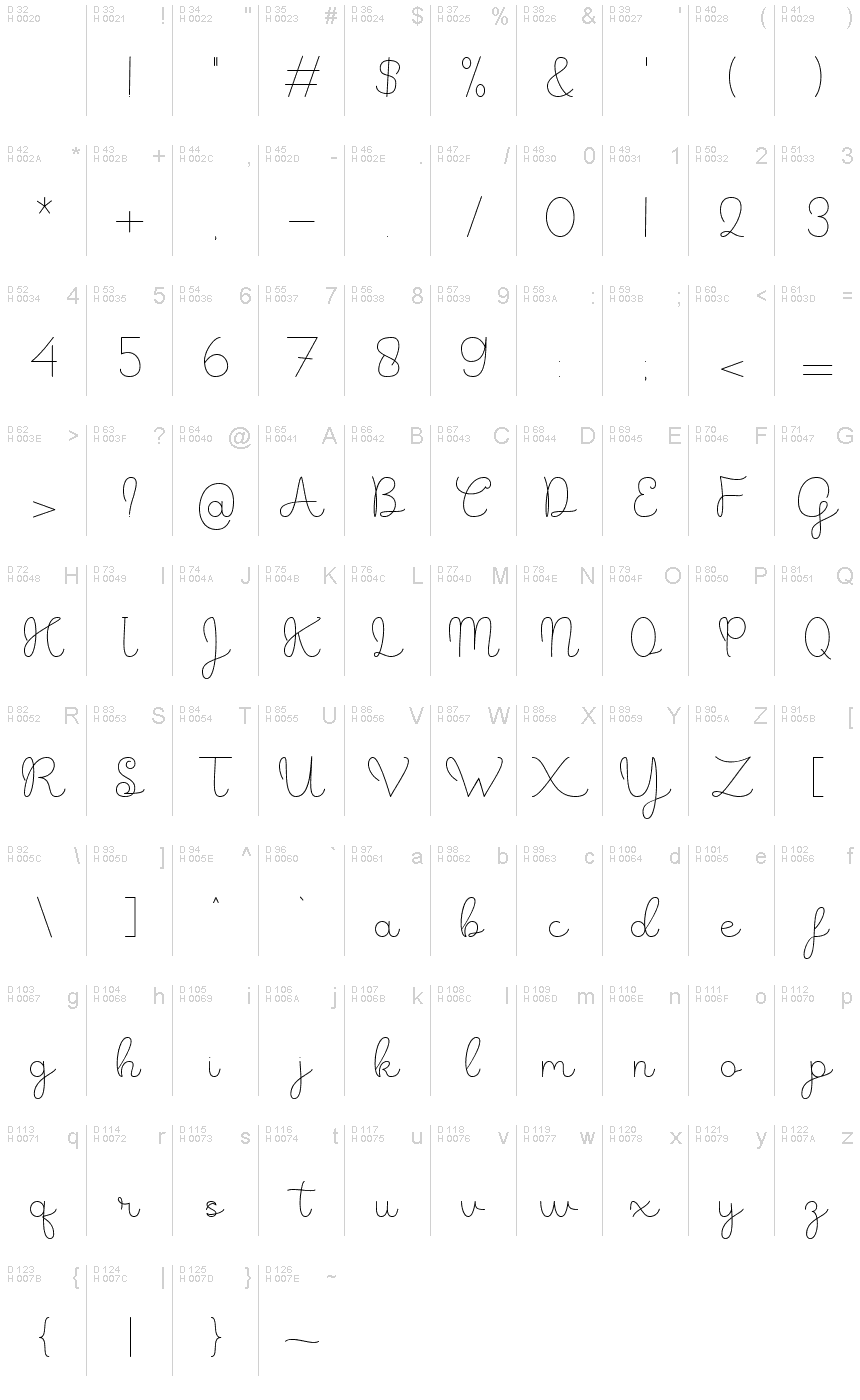
Boba
Boba, the adorable font designed by Hardiboy Design, brings a touch of whimsy to any project. With its extra-light weight, this cute handwritten typeface adds a delicate and playful charm.
Perfect for children's books, greeting cards, or nursery décor, Boba captures the innocence and joy of childhood. Its gentle curves and flowing strokes make it ideal for creating memorable logos or branding materials for boutique stores or creative studios.
Let Boba transport your audience into a world filled with imagination and enchantment.